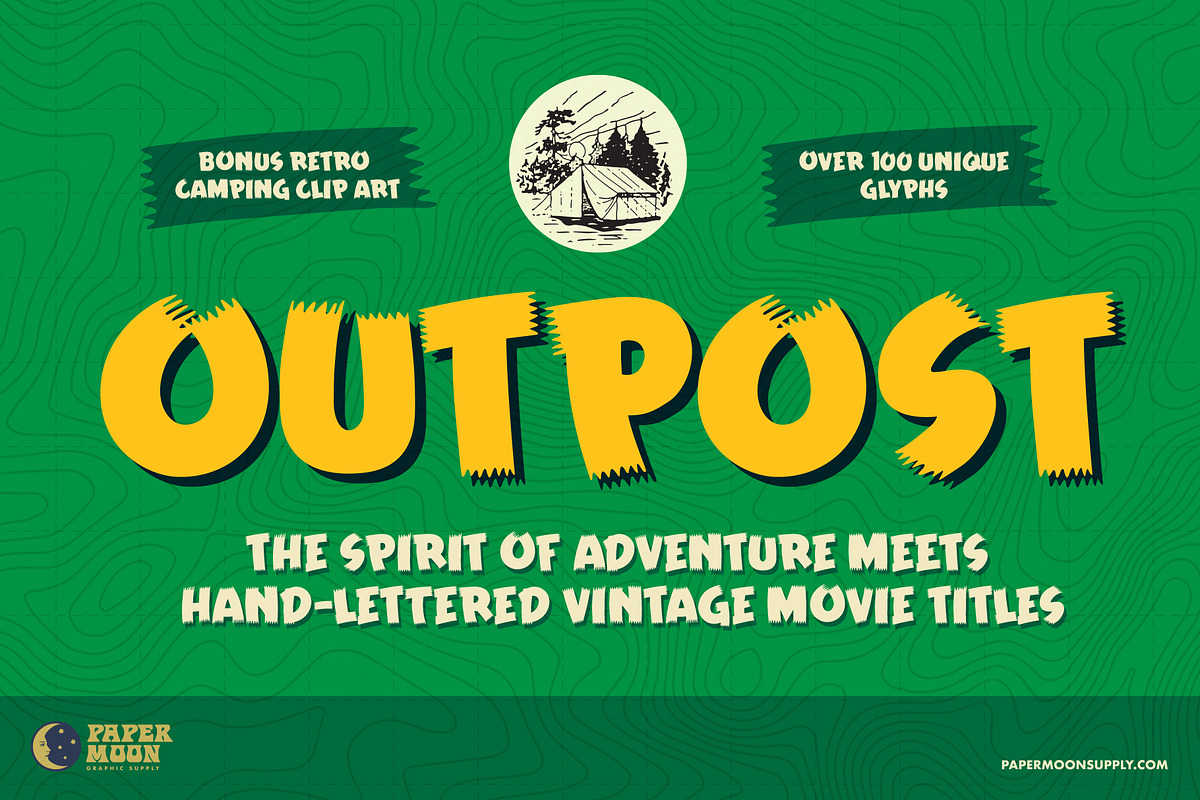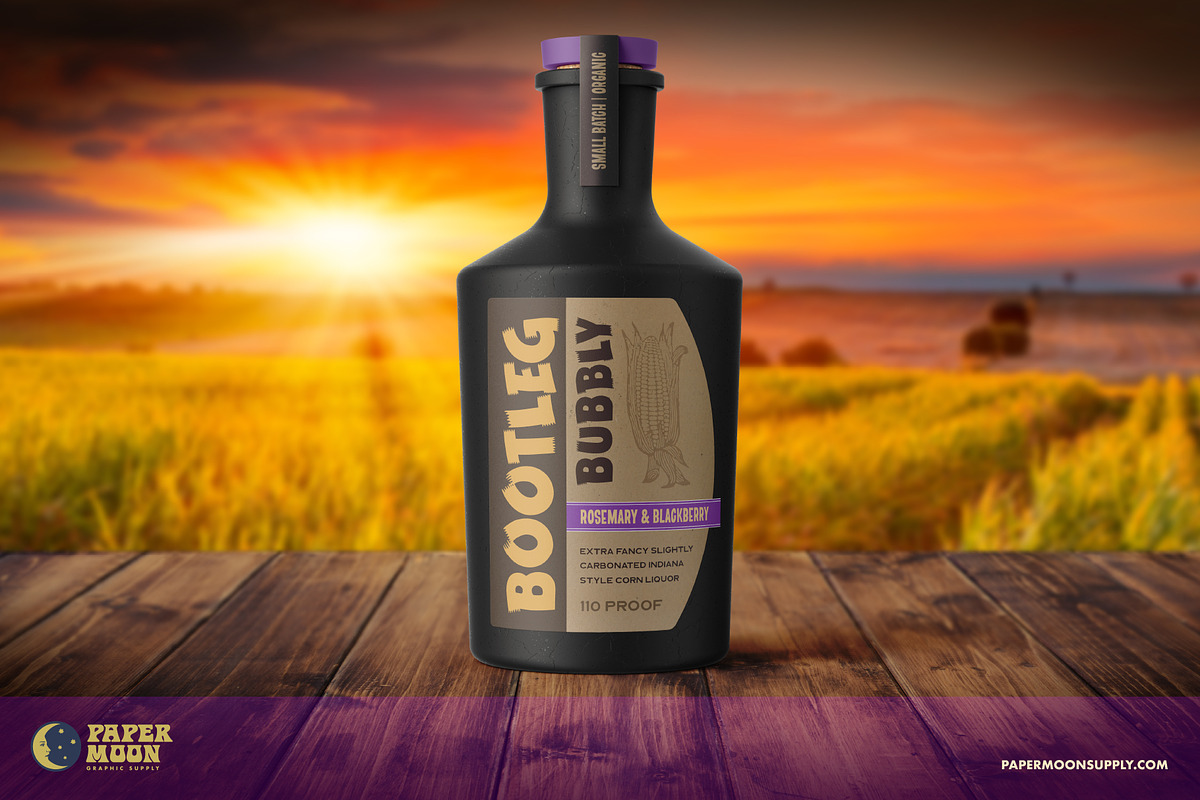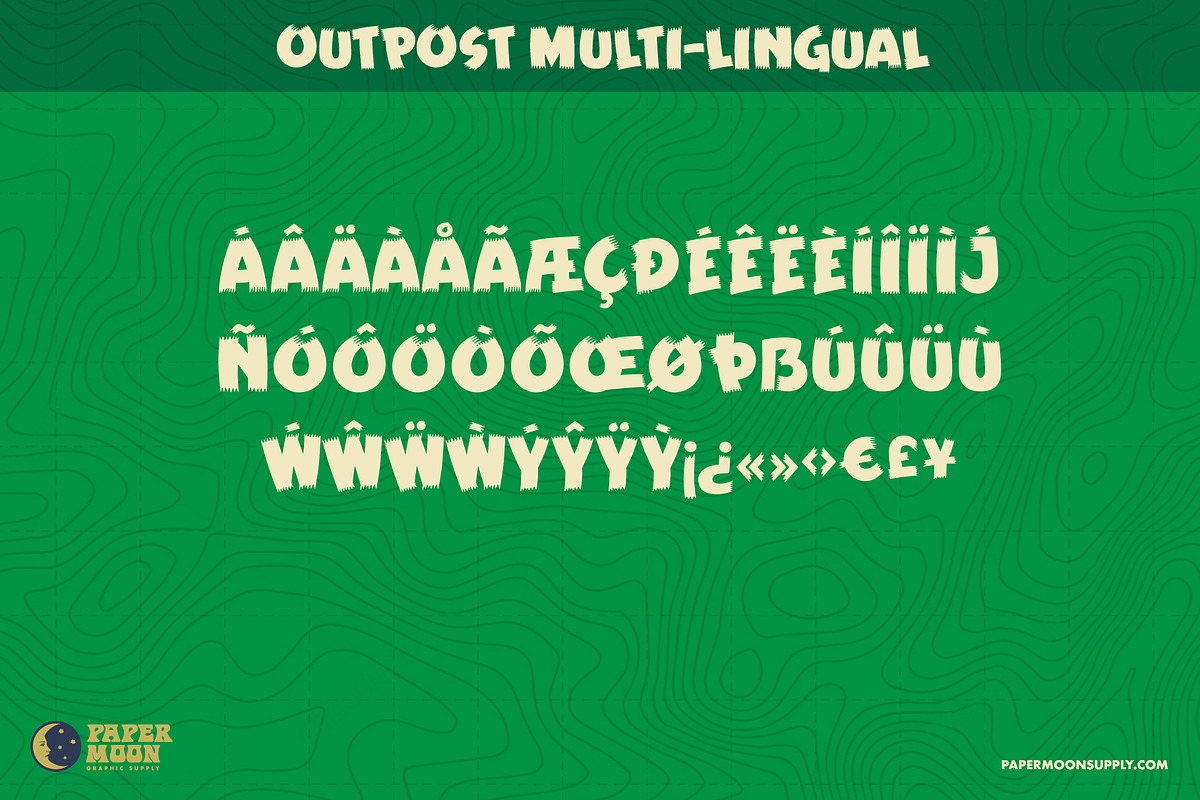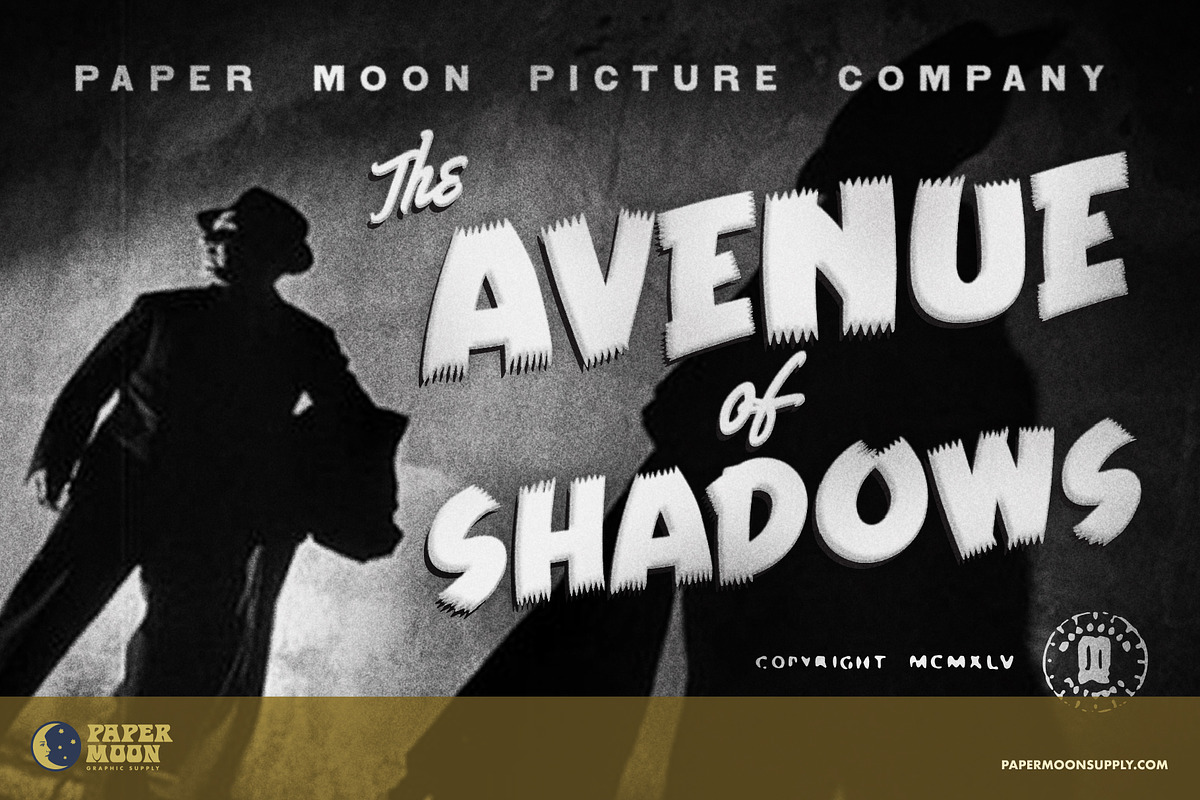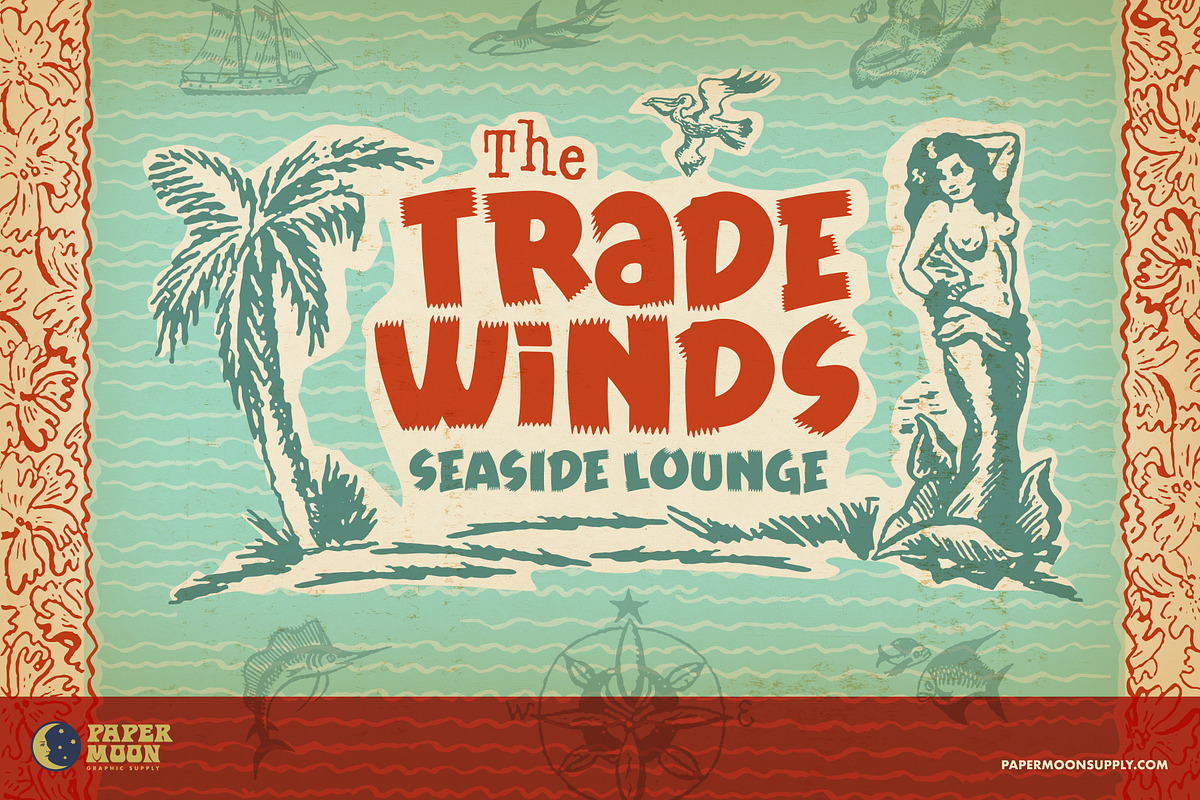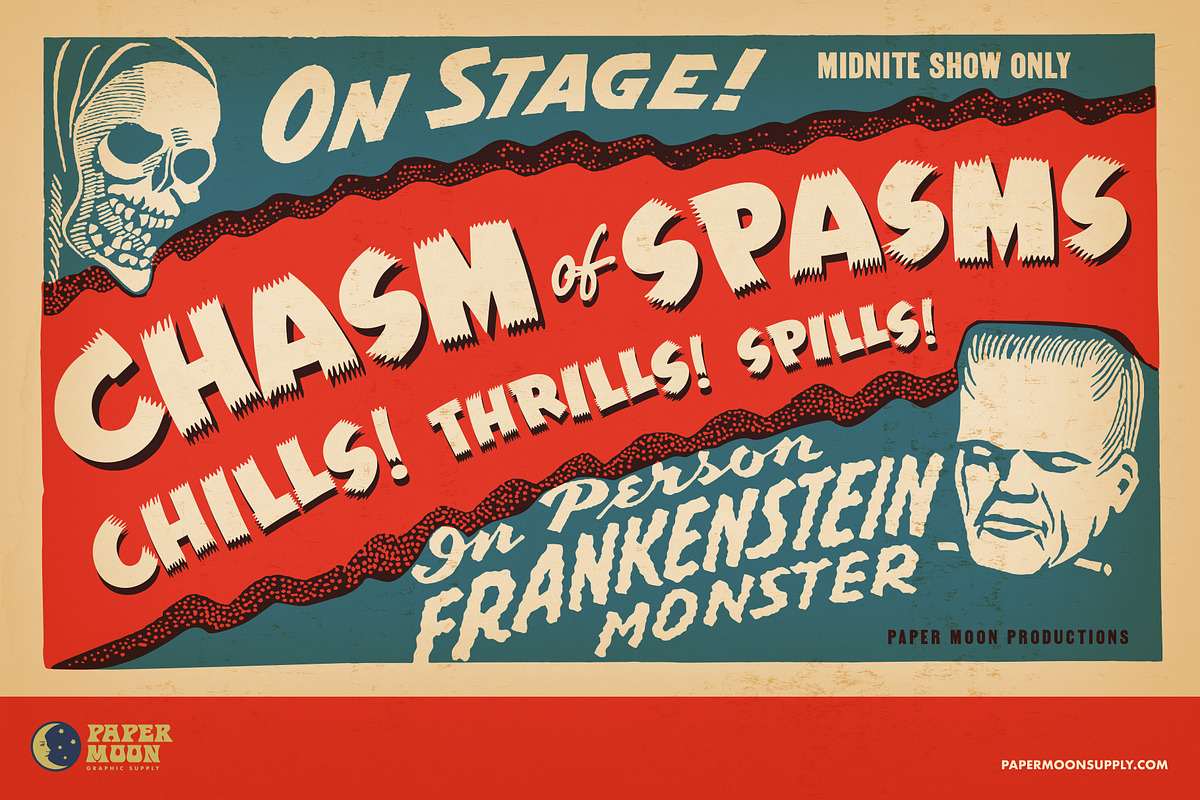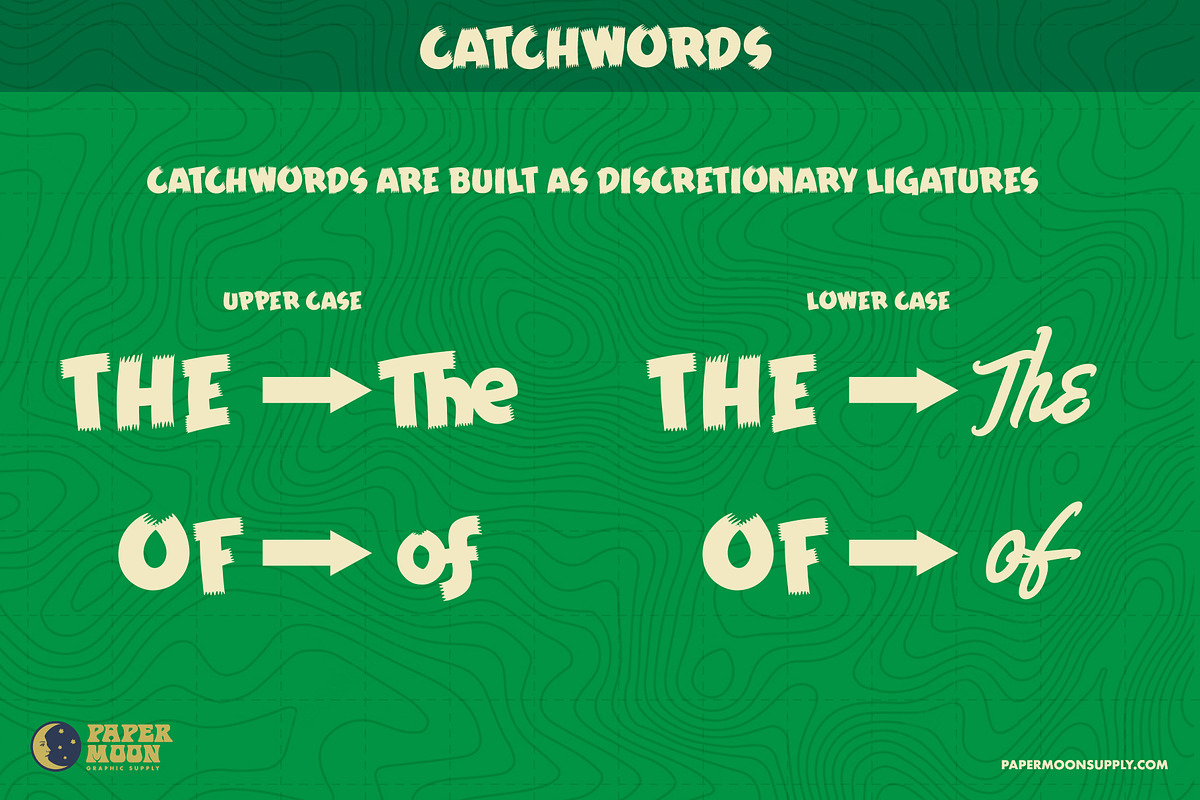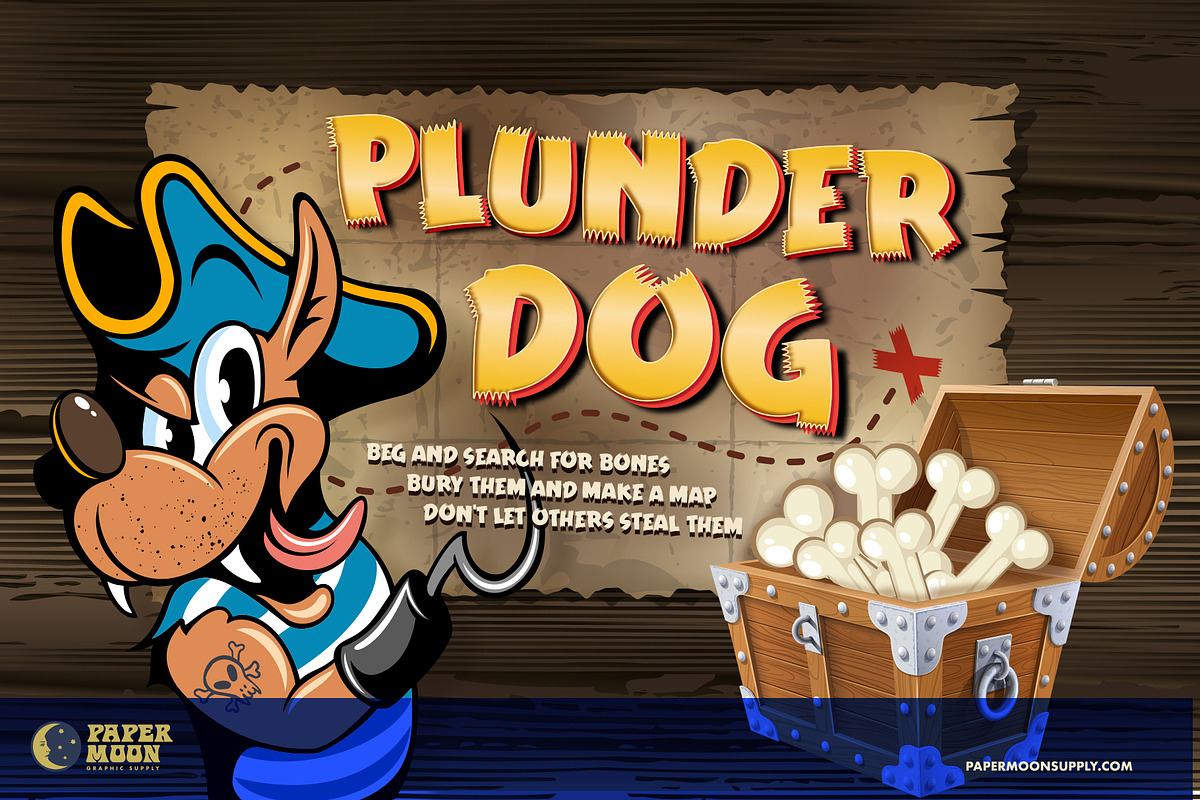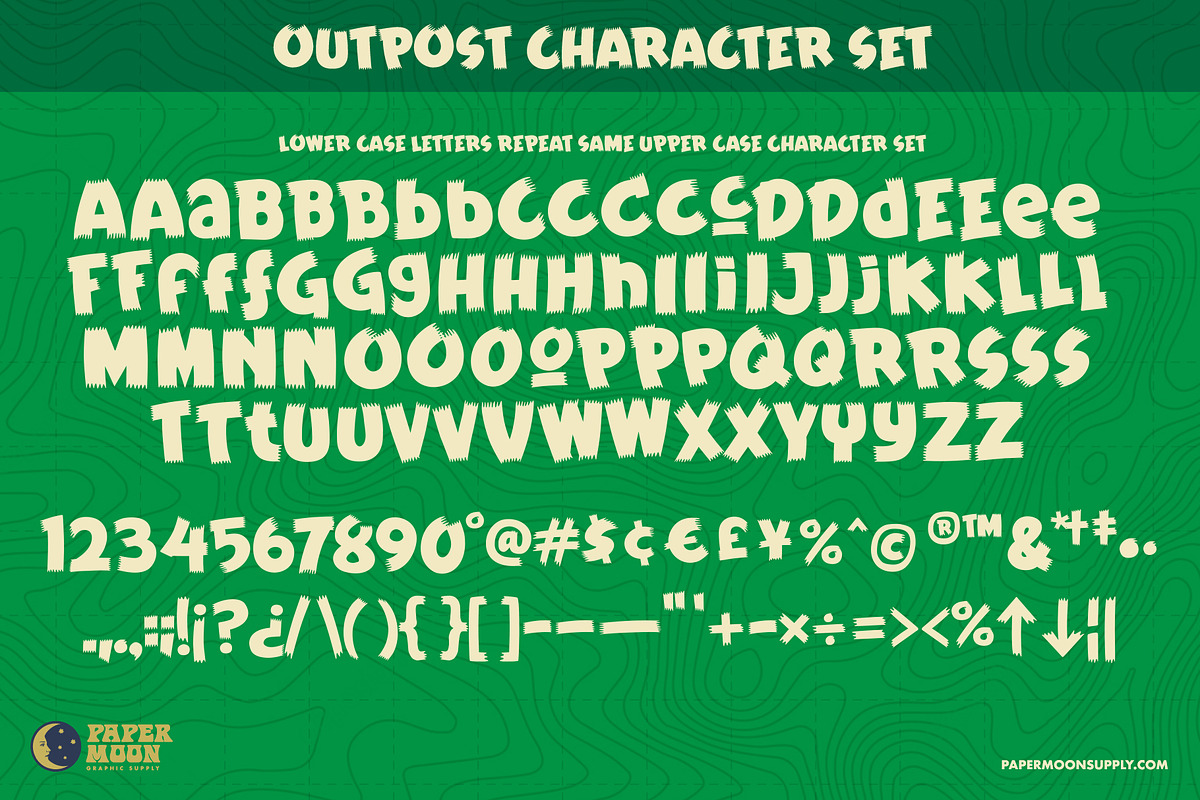
Outpost Retro Brush Font
Part pirate, part BBQ, all fun. Our new adventure inspired retro poster font
Outpost was inspired by retro hand-lettered type used on vintage movie tiles, midnight movie posters, and pulp adventure magazines. But don't let that limit your creativity. Part pirate, part BBQ, all fun. Outpost is perfect for gaming titles, casual food packaging, and of course, Halloween projects.
- Over 100 unique characters
- Use Opentype stylistic alternates to create unique letter combinations for a real hand-lettered look.
- Opentype conditional alternates to avoid consecutive letter repeats
- Includes catchwords
- Complete alphabet, number, and punctuation sets
- Created by Scott Banks of Persuasion Bureau
Outpost was designed and developed by award-winning illustrator and designer Scott Banks.